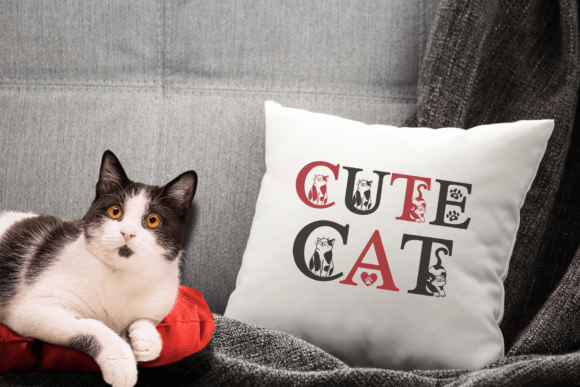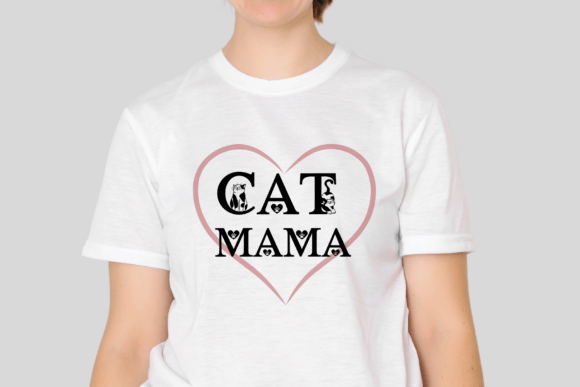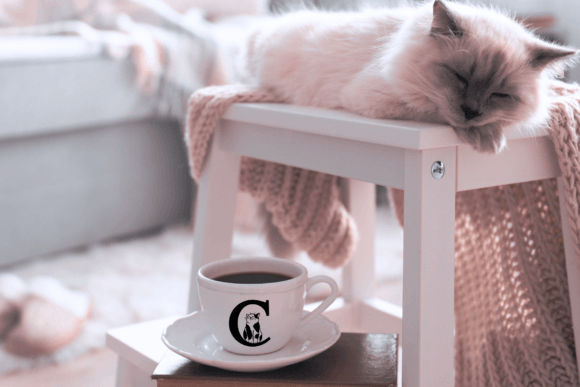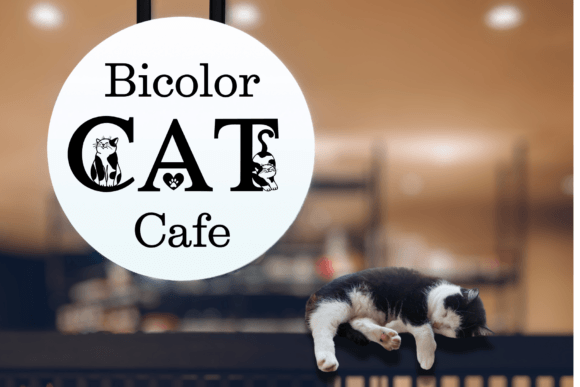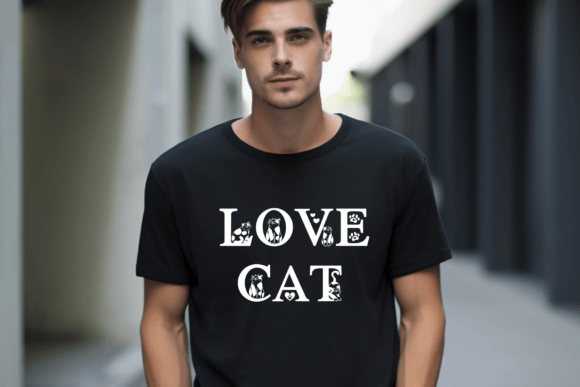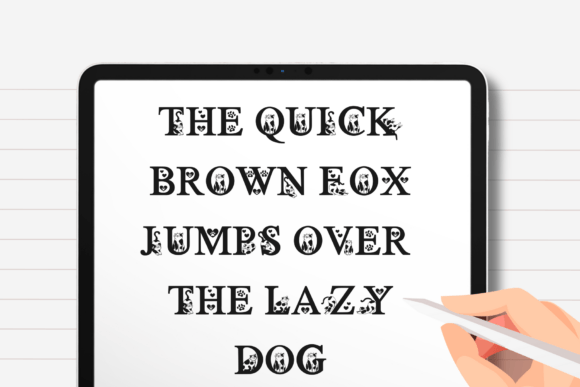
The Purrfect Font: A Comprehensive Guide to Cat Lover Font
As a designer, I’ve had my fair share of struggles when it comes to finding the right font for a project. But one font that has truly captured my heart is the Cat Lover Font. With its adorable cat designs and authentic feel, it’s the perfect addition to any creative project. In this article, I’ll share my experience with Cat Lover Font, its features, and how to make the most of it in your designs.
My First Encounter with Cat Lover Font
I remember working on a project for a cat cafe, and I was tasked with creating an invitation that would make their customers go wild. I scoured the internet for the perfect font, but nothing seemed quite right. That was until I stumbled upon Cat Lover Font. I was immediately drawn to its cute and playful design, and I knew I had found the one.
An Honest Review of Cat Lover Font
So, what makes Cat Lover Font so special? Here are a few things I love about it:
- ✨ Adorable cat designs that add a touch of whimsy to any project
- ✅ Authentic feel that makes your designs look like they were made with love
- 🎉 Wide range of uses, from invitations to social media posts
- 👍 Easy to read and understand, even in small sizes
Of course, no font is perfect, and Cat Lover Font has a few quirks:
- 🤔 Some characters may not work well in very small sizes
- ⚠️ Limited availability of certain special characters
The Story Behind Cat Lover Font
Cat Lover Font was designed with one goal in mind: to bring a touch of feline charm to your designs. The designer, a self-proclaimed cat lover, wanted to create a font that would make people smile. And with its adorable cat designs and authentic feel, it’s clear that they’ve succeeded.
| Font Name | Cat Lover Font |
| Author | Pui Art |
| What is Cat Lover Font? | Cat Lover Font is a decorative font featuring adorable cat designs. |